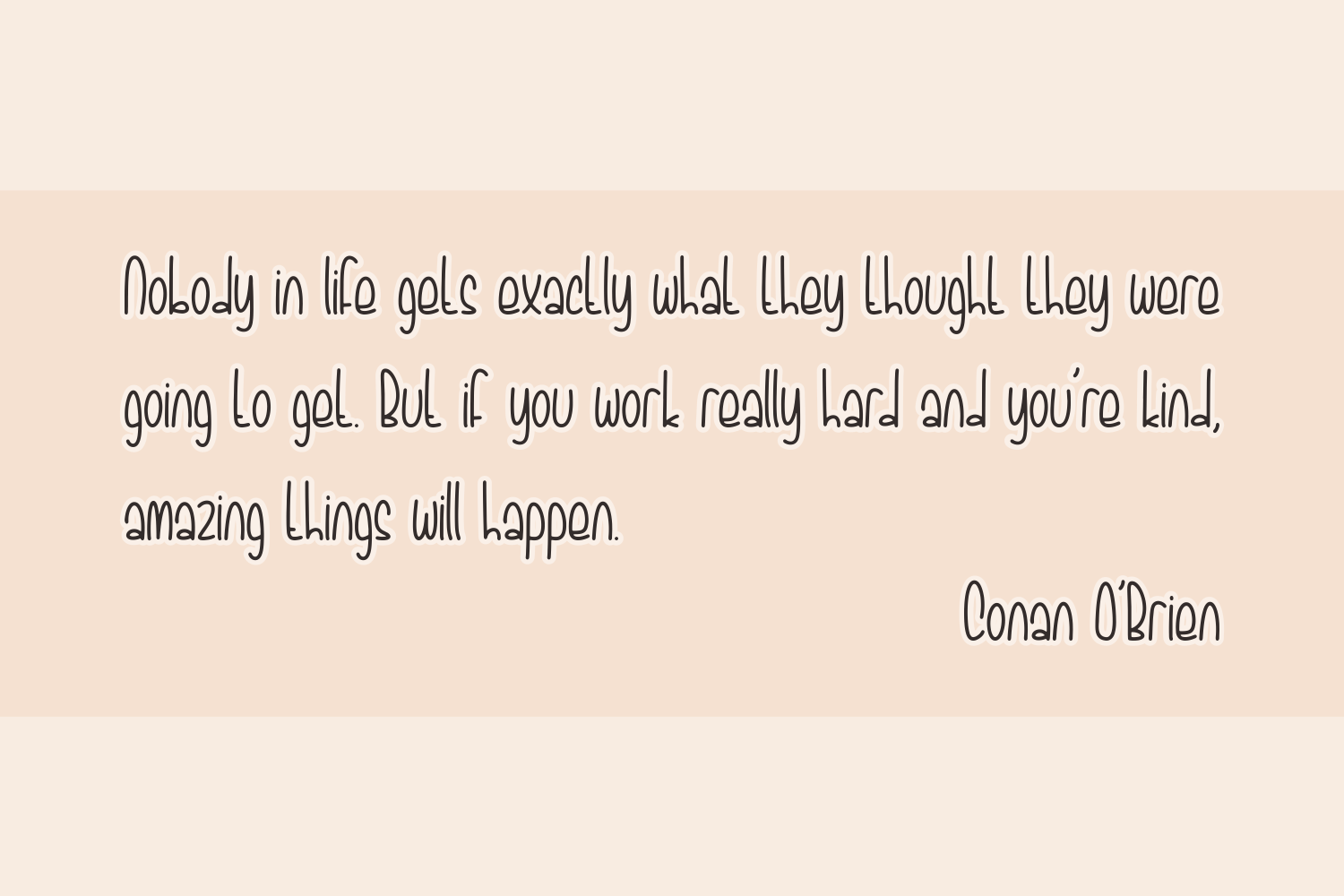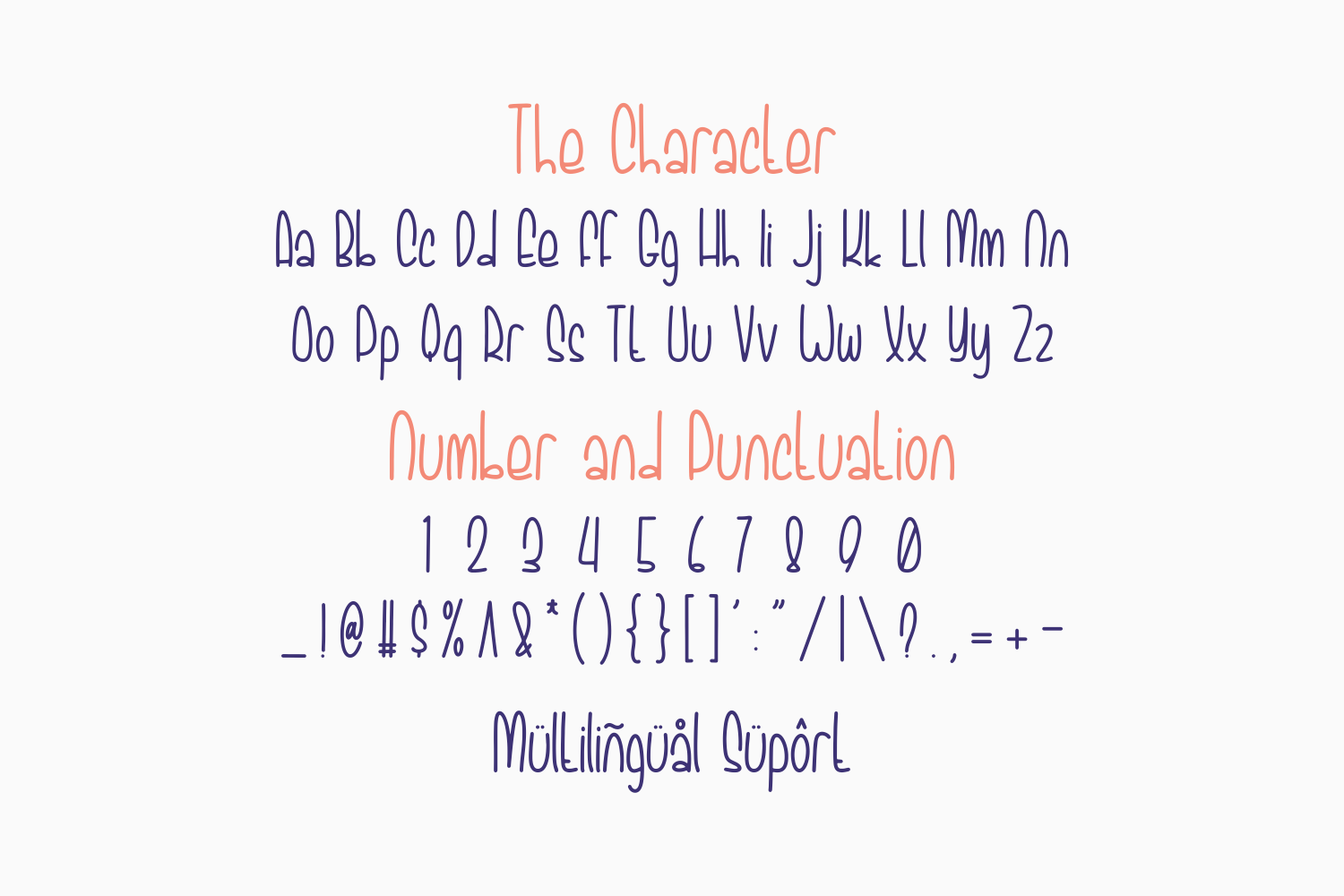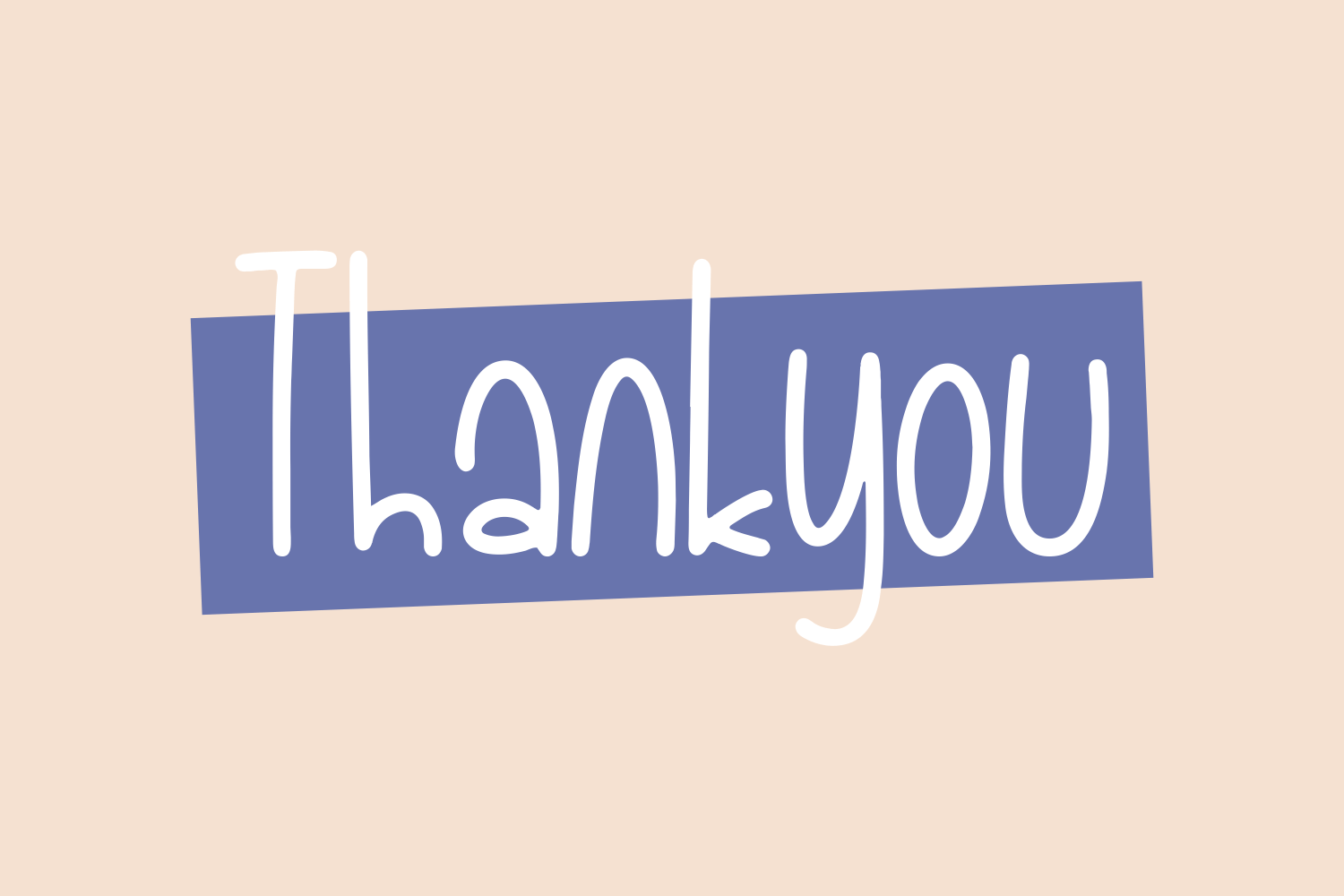
Bread Crafter Font
Bread Crafter Display Font is a fancy and elegant handcrafted font that create to impress your audience and make your branding shine.
Make your projects dance with this elegant and wonderful font wherever you use it. Use it for your headings, logos, ads, printed quotes, packaging, and even your website or social media branding.